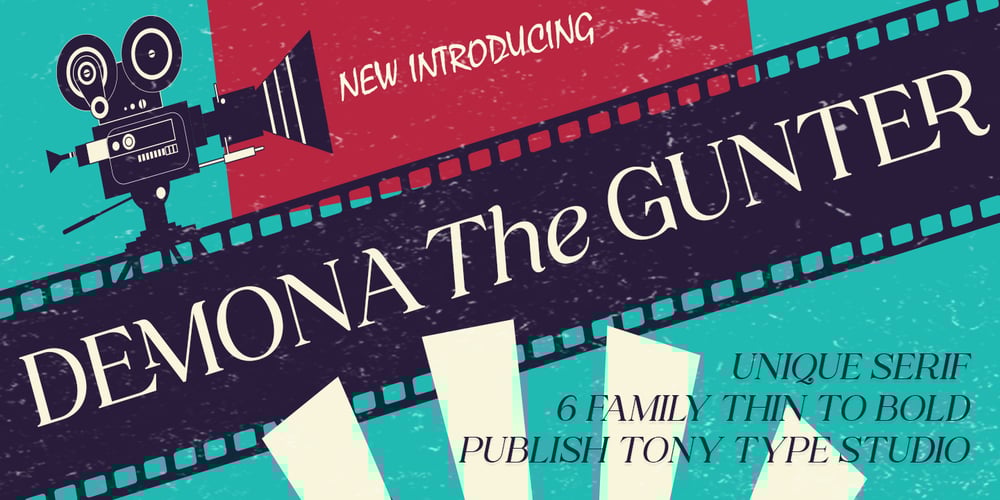
DEMONA The GUNTER Font Family was designed by Toni Irfandi and published by Tony Type Studio. DEMONA The GUNTER contains 6 styles and family package options. Demona the Gunter is the result of a journey towards self-discovery and part of an ongoing process of exploration. A font featuring a more evolved design while maintaining a charmingly simple style.The extreme contrast between thick and thin strokes gives Demona the Gunter a harmonious and stylish look. It comes in 6 weights with matching regular and italic fonts and includes alternate and ligature versions. The entire character set supports many Latin based languages. Demona the Gunter is perfect for editorial design, movie titles, branding, magazines, logos, headers and more